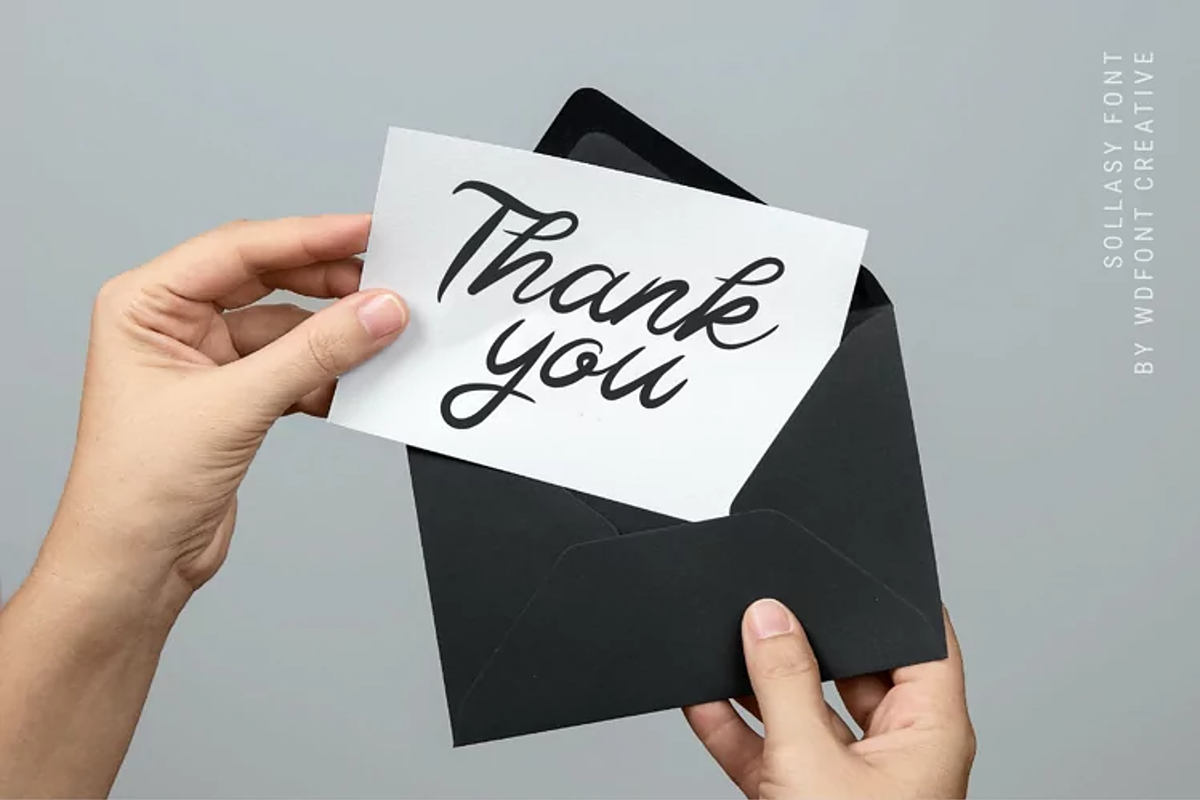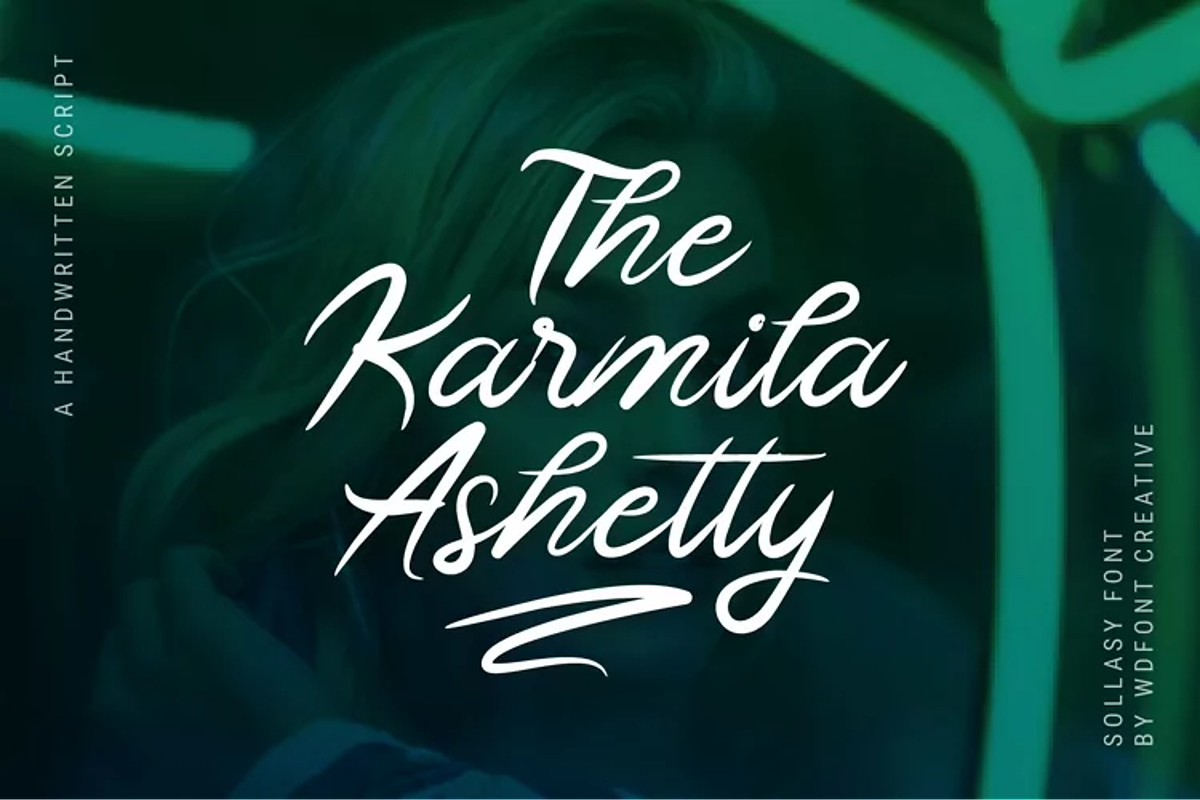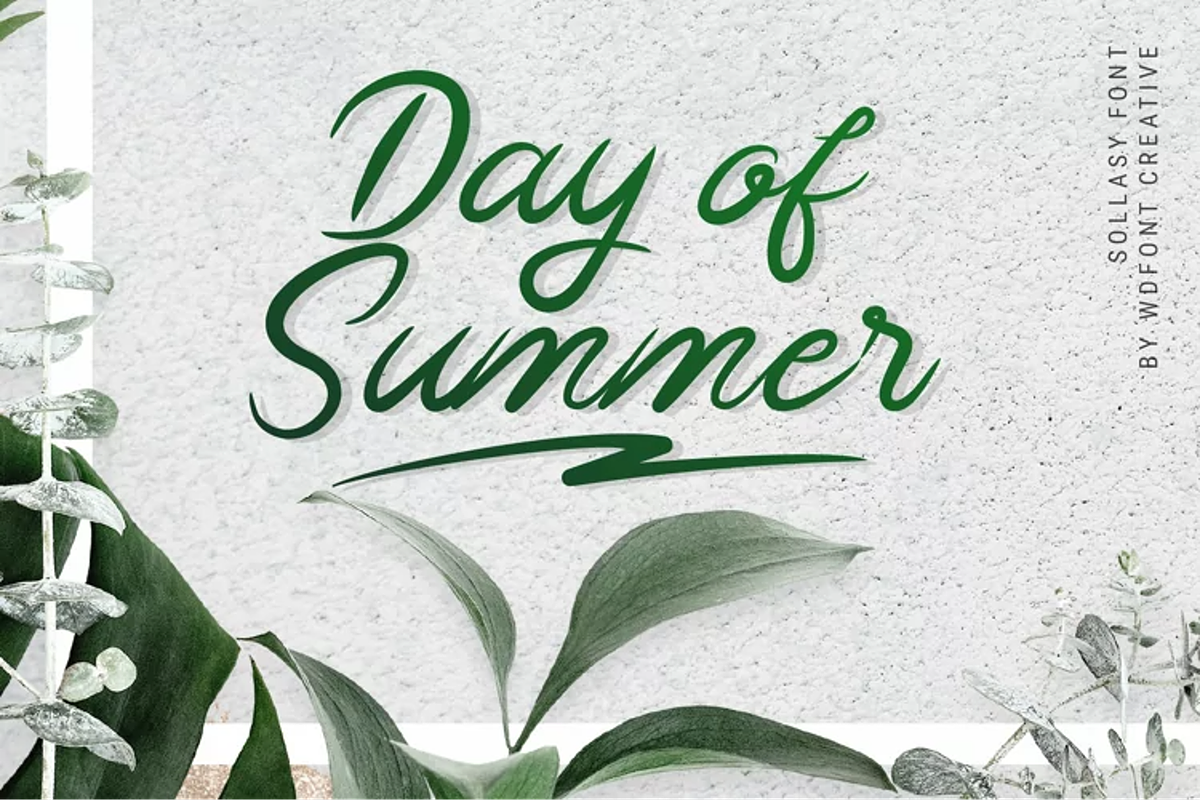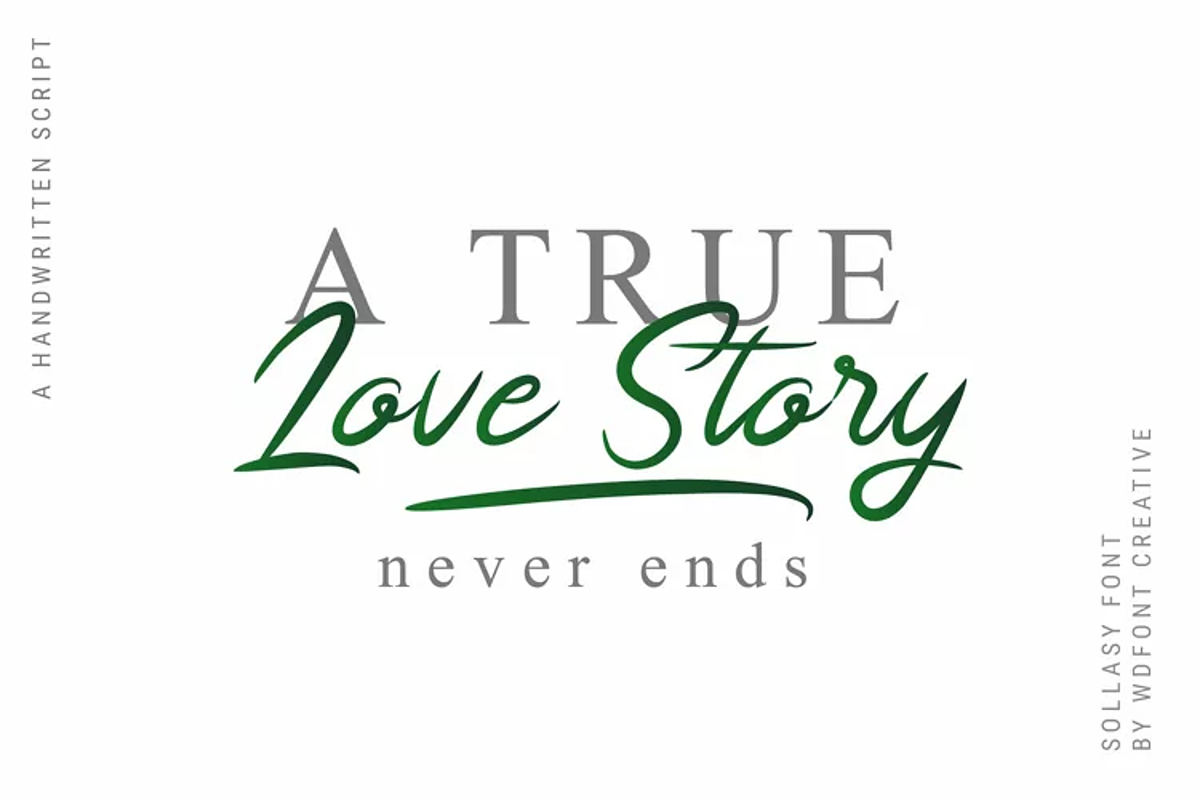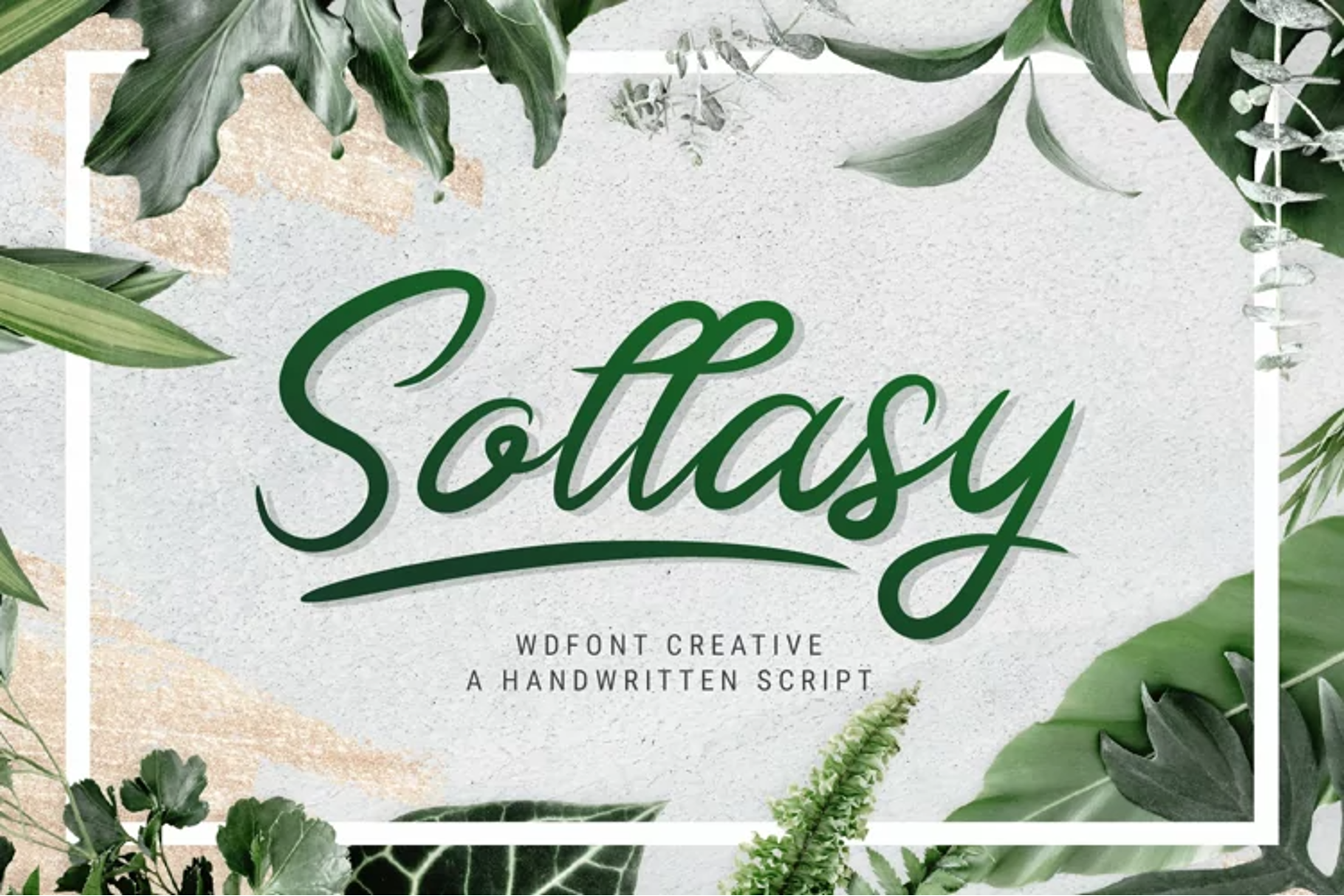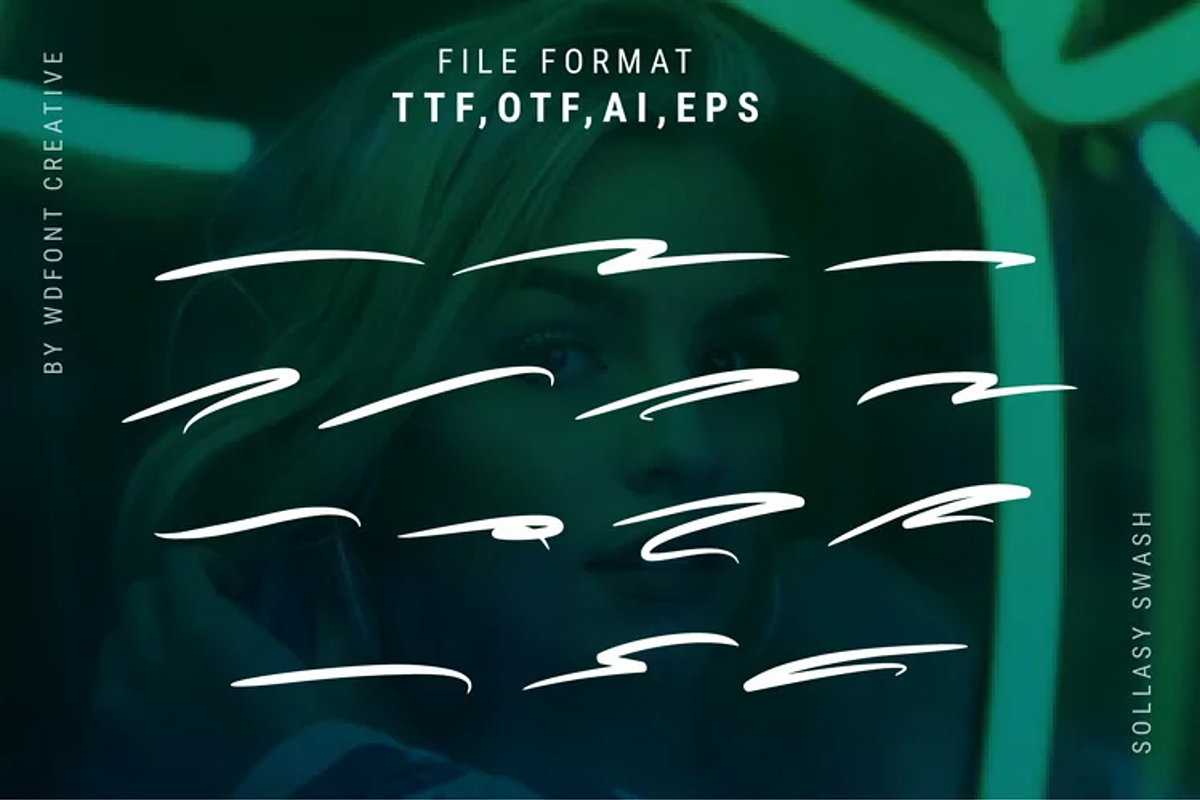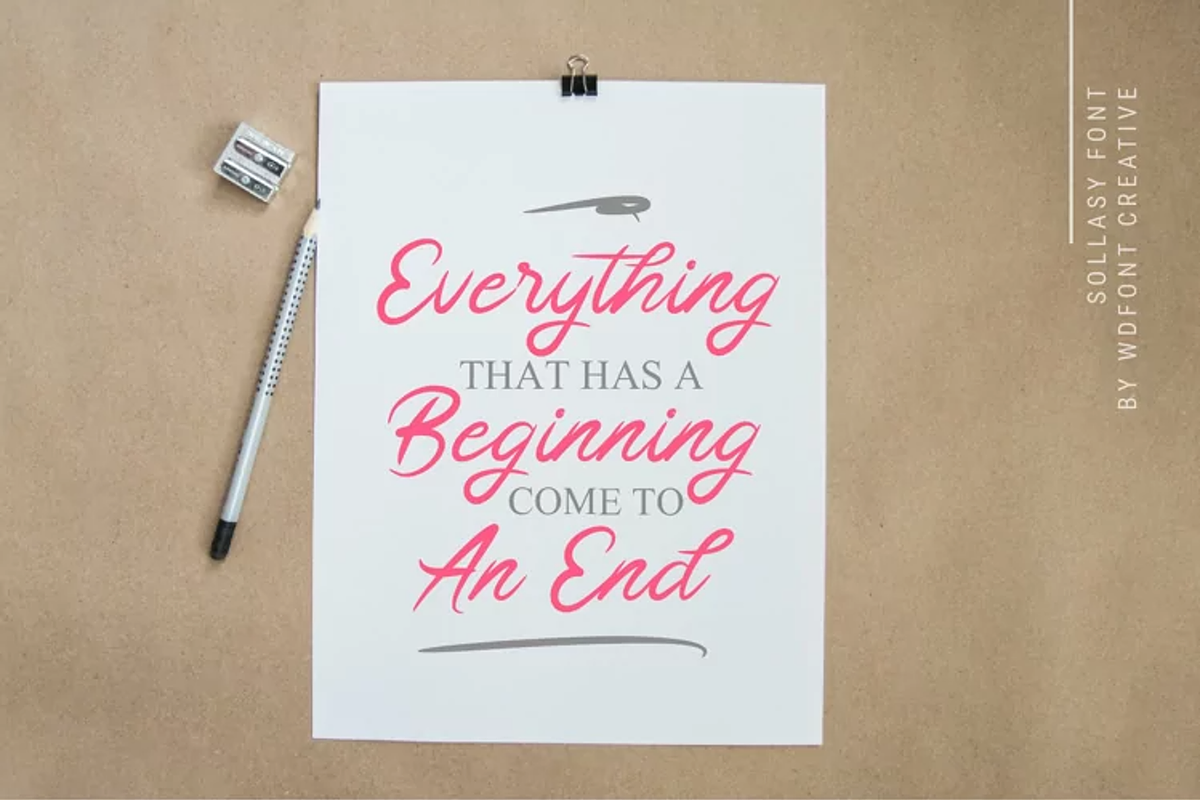
Sollasy Font
Sollasy Font is an undeniably cute and whimsical handwritten font that will put an adorable spark on any design idea. Fall in love with its playful charm.